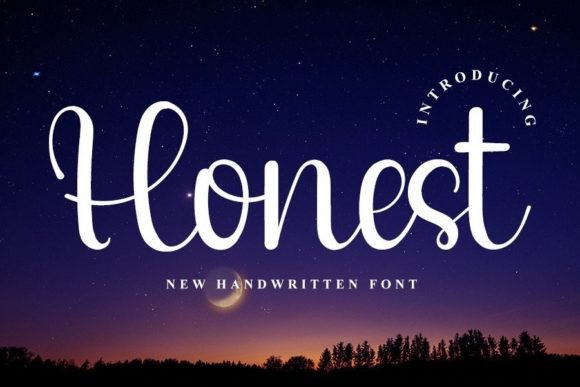
**Introducing Honest Font: The Script That Will Captivate Your Audience**
Prepare to be mesmerized by Honest Font, a captivating script that exudes elegance and timeless charm. Immerse yourself in its enchanting curves and graceful lines, crafted with love by Kongsi.Co.
Honest Font is not just a font; it's an artistic masterpiece designed to elevate your projects to new heights. Its unique and distinctive style will leave an unforgettable impression on your audience, ensuring that your message resonates with power and impact.
Whether you're crafting eye-catching logos, captivating social media posts, or stunning website designs, Honest Font will effortlessly transform your creations into works of art. Its versatility knows no bounds, adapting seamlessly to any design vision you can dream of.
**Why Choose Honest Font?**
* **Unleash Your Creativity:** Honest Font's elegant curves and flowing lines will ignite your imagination, empowering you to express your creativity without limits.
* **Make a Statement:** Stand out from the crowd with a font that commands attention and conveys your message with unwavering confidence.
* **Create Timeless Designs:** Honest Font transcends fleeting trends, offering a timeless aesthetic that will endure for years to come.
* **Elevate Your Projects:** Experience the transformative power of Honest Font as it elevates your projects to new levels of sophistication and visual appeal.
* **Effortless Customization:** Tailoring Honest Font to your unique needs is a breeze, ensuring that it perfectly complements your design vision.
**Perfect for:**
* Eye-catching Logos
* Social Media Posts
* Website Designs
* Branding and Packaging
* Invitations and Announcements
* And More!
**Experience the Honest Font Difference Today:**